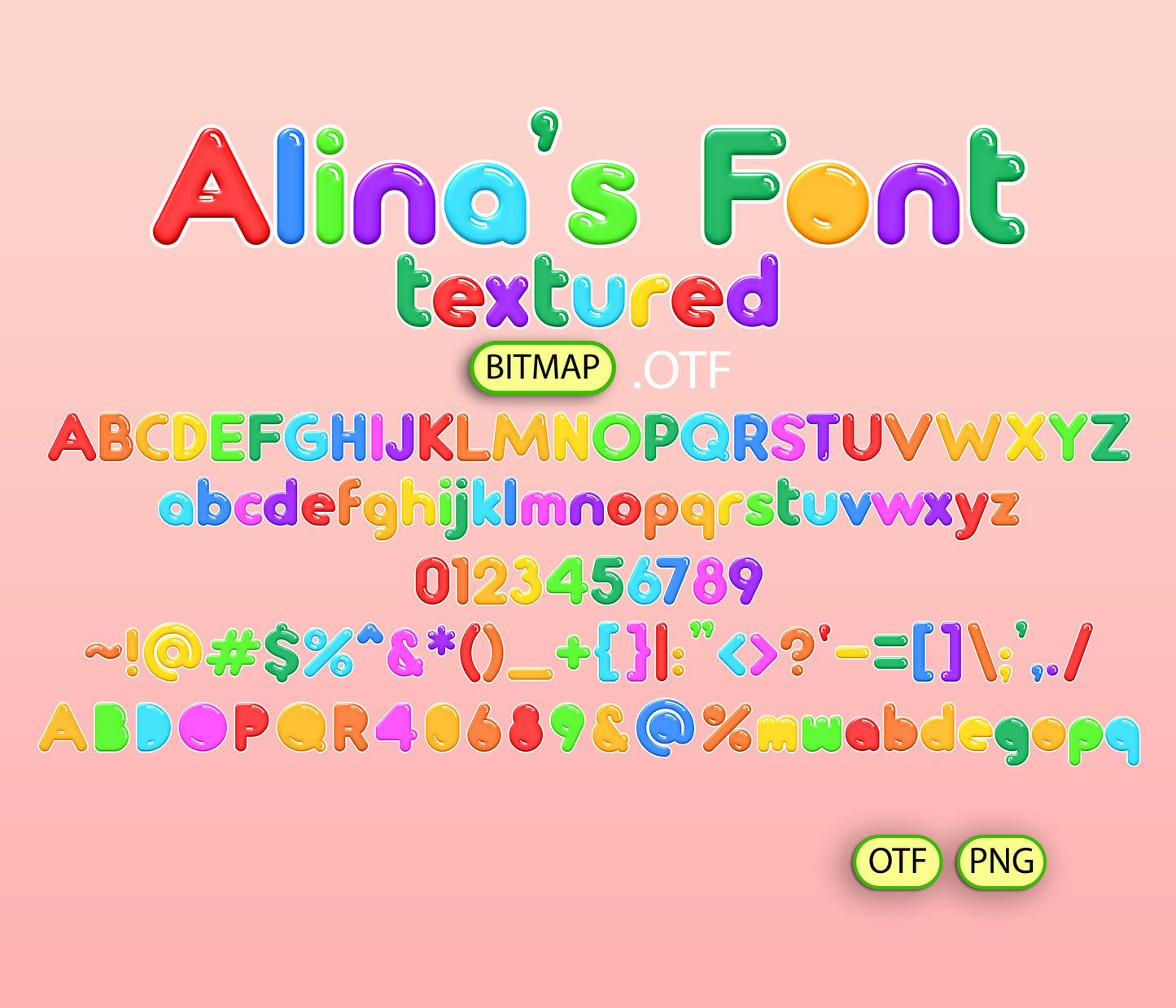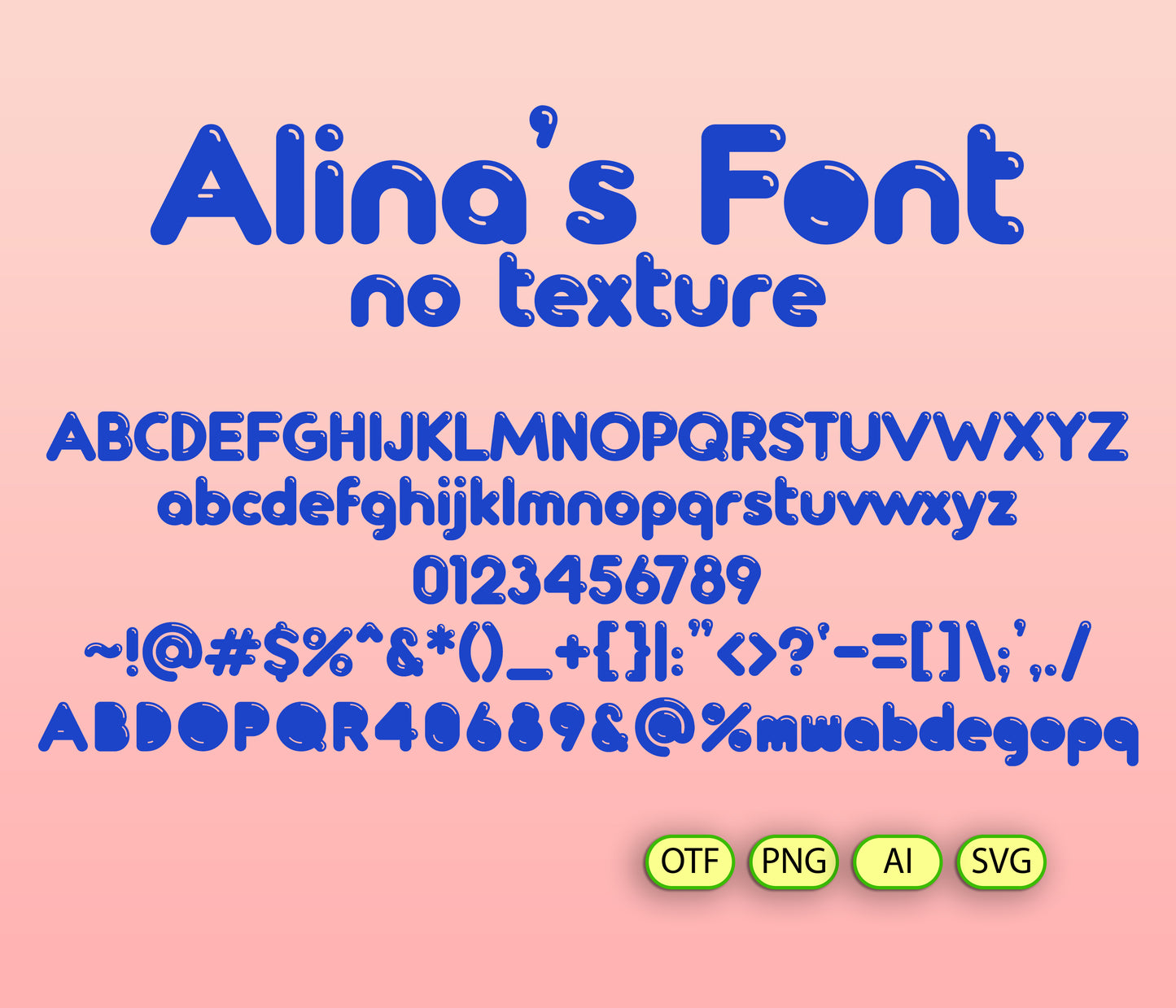
Melodic Nursery Rhyme Font Textured
Step into the colorful, musical world of animated toddlers and their catchy educational adventures with our specially designed font. This typeface captures the essence of a wildly popular children's content series that has captivated young audiences worldwide. Perfect for early childhood educators, parents, and content creators focusing on preschool-aged children, this font brings the cheerful, melodic spirit of sing-along learning to your projects.
What is the Melodic Nursery Rhyme font?
Our font is a visual representation of the bright, bouncy aesthetic that defines this beloved animated series. It features round, bubbly letterforms that seem to dance and sway, as if moving to the rhythm of a nursery rhyme. Each character exudes a perfect blend of playfulness and clarity, ideal for projects that aim to engage and educate young children through visual appeal.
What You Can Do With Melodic Nursery Rhyme Textured Font
This versatile font is perfect for a wide range of creative applications:
- Children's Birthday Invitations: Create charming invites for toddler birthday parties and playdates.
- Educational Materials: Design worksheets, flashcards, and learning resources for preschoolers.
- Digital Content: Enhance websites, apps, and videos aimed at young children with eye-catching text.
- Merchandise Design: Create appealing T-shirts, backpacks, and accessories for young fans of the show.
- Nursery Decor: Perfect for wall art, growth charts, and personalized room decorations.
- Children's Books: Ideal for creating engaging titles and text in picture books for toddlers.
- Family-Friendly Event Promotions: Use in marketing materials for events targeting families with young children.
- Textured and Non-Textured Variants: Available in both a colorful, cartoon-like style and a clean, non-textured version for diverse design needs.
- Comprehensive Character Set: Offers a wide range of characters, including musical note alternatives and child-friendly symbols.